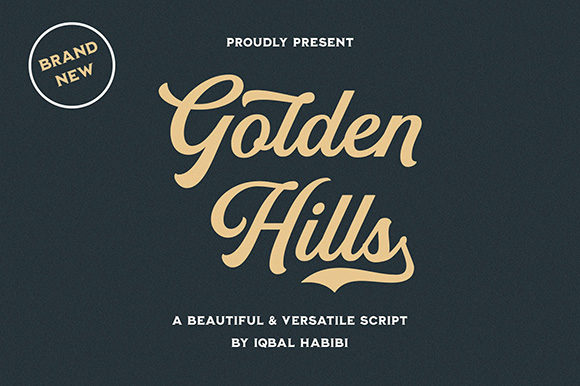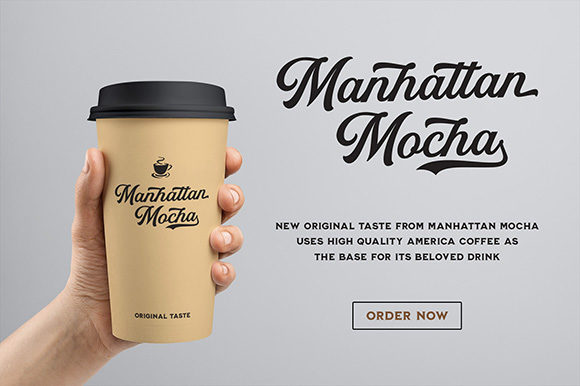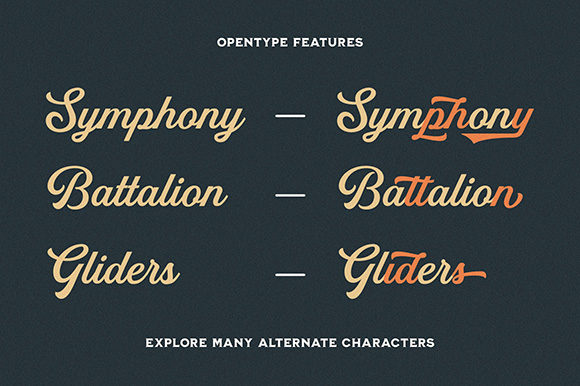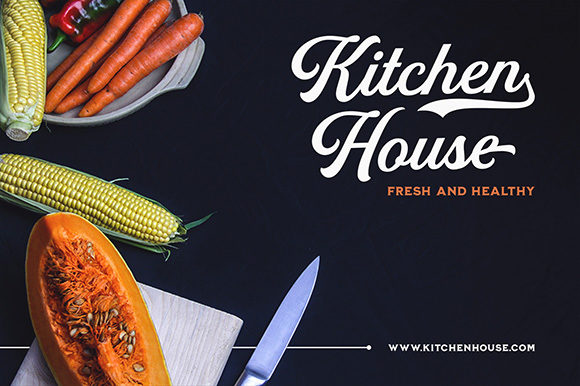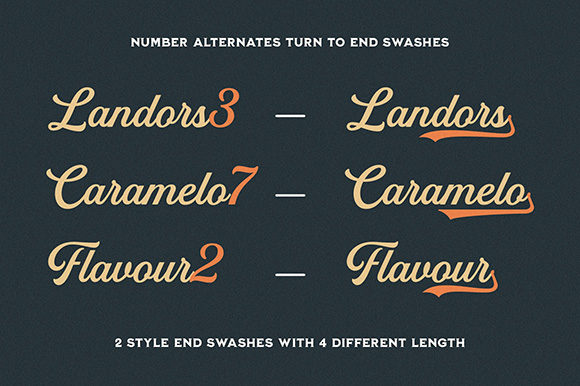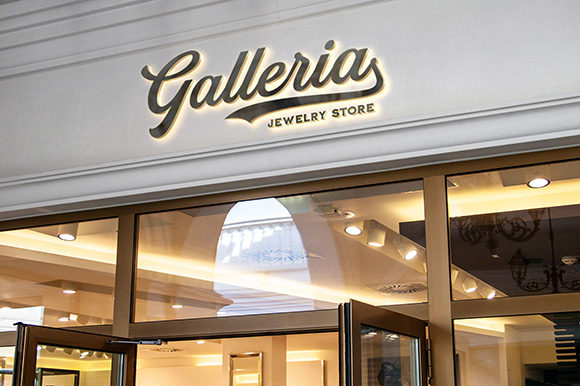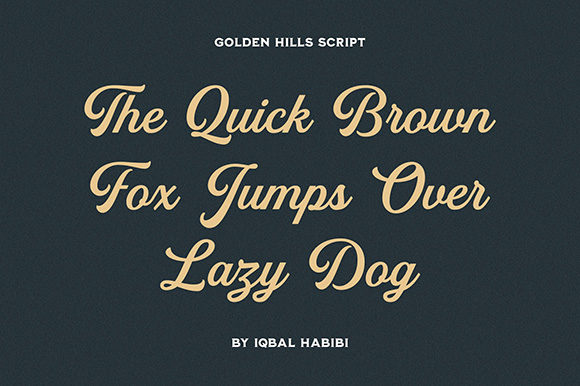
Golden Hills Font
About Golden Hills Font
Golden Hills is a casual, modern handwritten font. Clean and elegant, this font is the perfect fit for all of your logos, branding, social media, and crafty DIY projects.